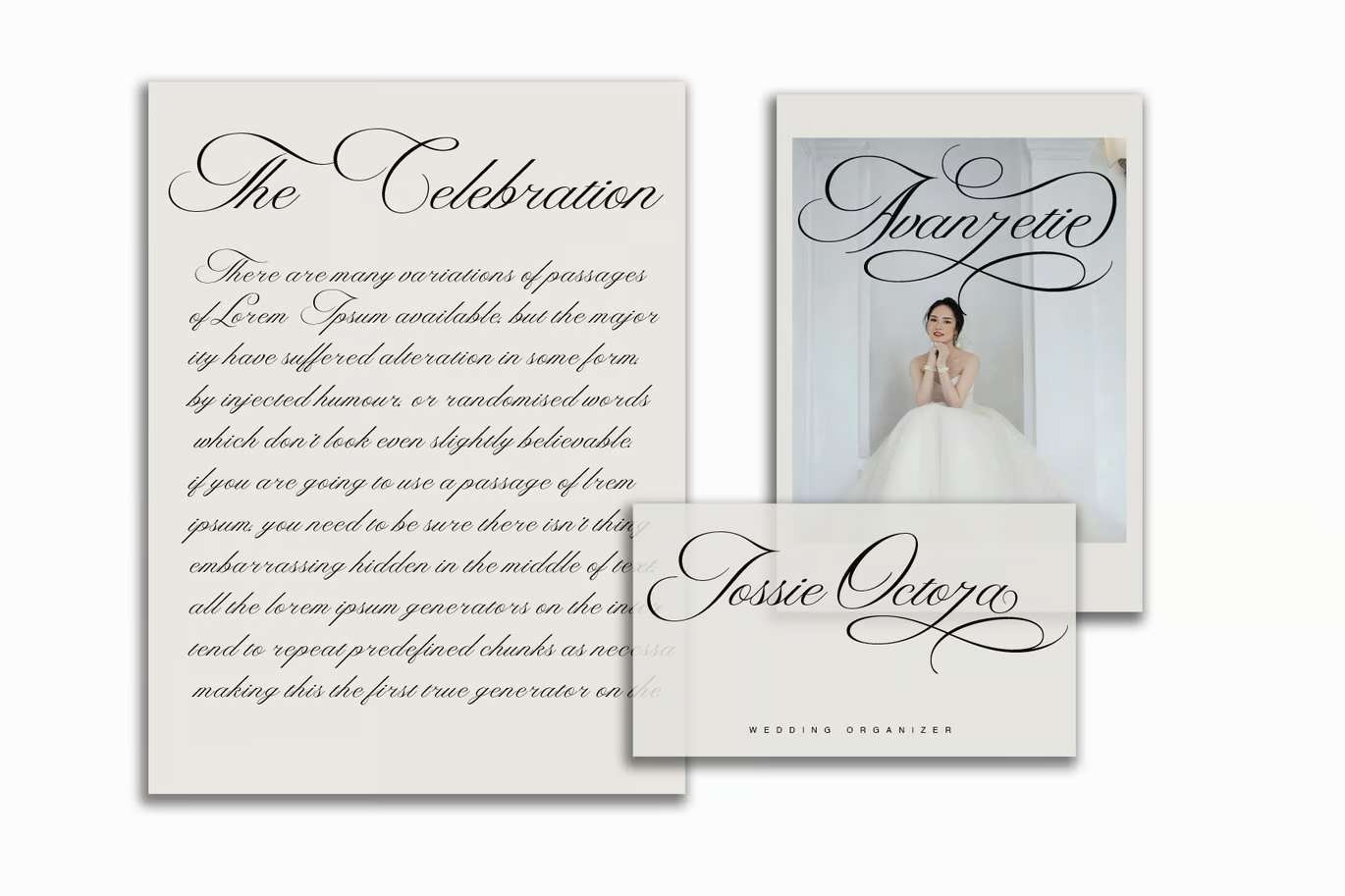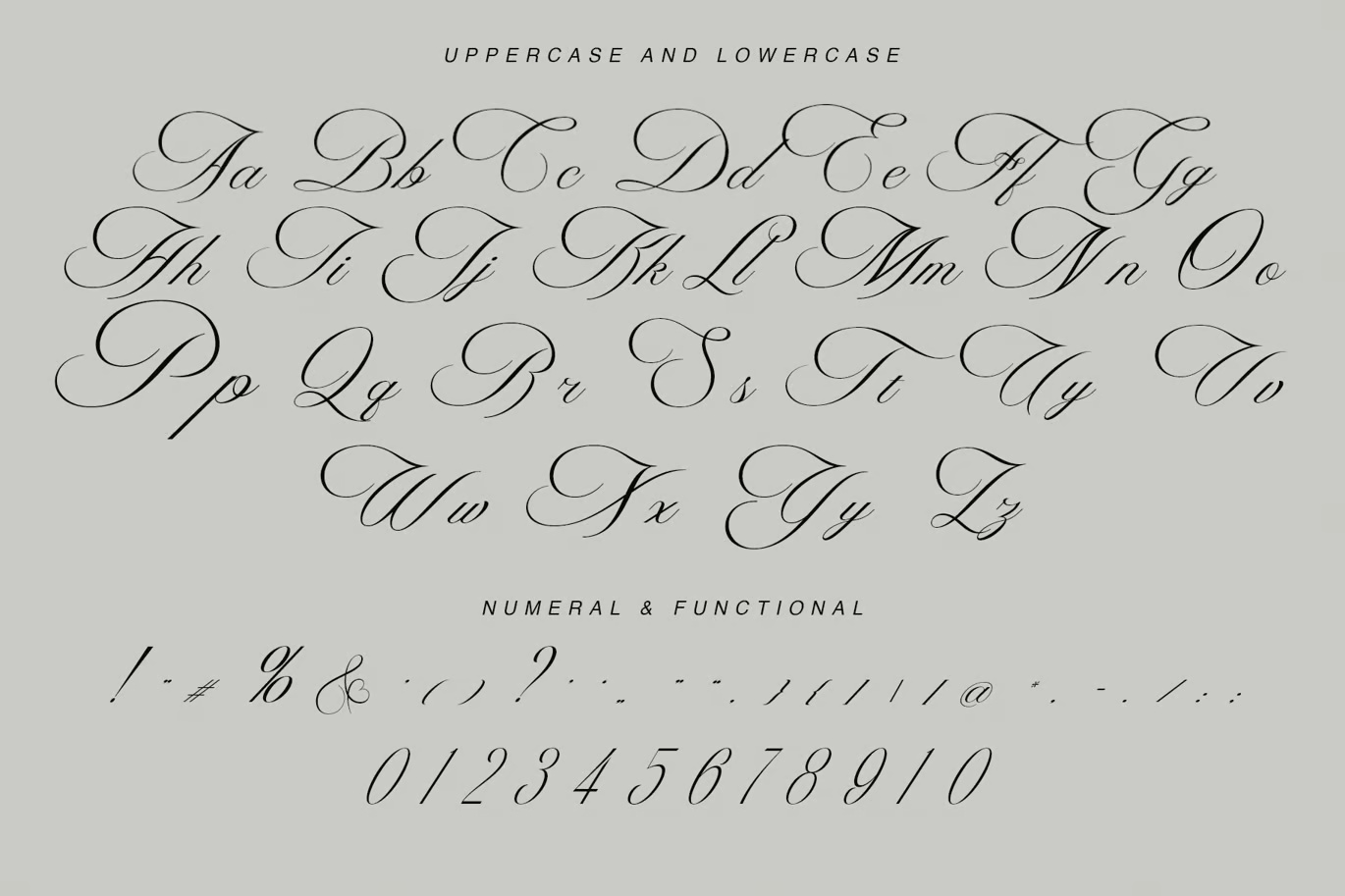
Dandellion
Dandellion is a stunning calligraphy font that exudes elegance and beauty in every stroke. With its smoothly flowing characters, delicate curves, and captivating details, this font brings a sense of luxury and romance to any design. The graceful letterforms create a timeless and sophisticated aesthetic, making it perfect for wedding invitations, elegant branding, stylish logos, high-end product packaging, and a variety of creative projects that require an artistic and feminine touch. Whether you’re designing for a special occasion or crafting a signature look, Dandellion adds a refined charm to your work.